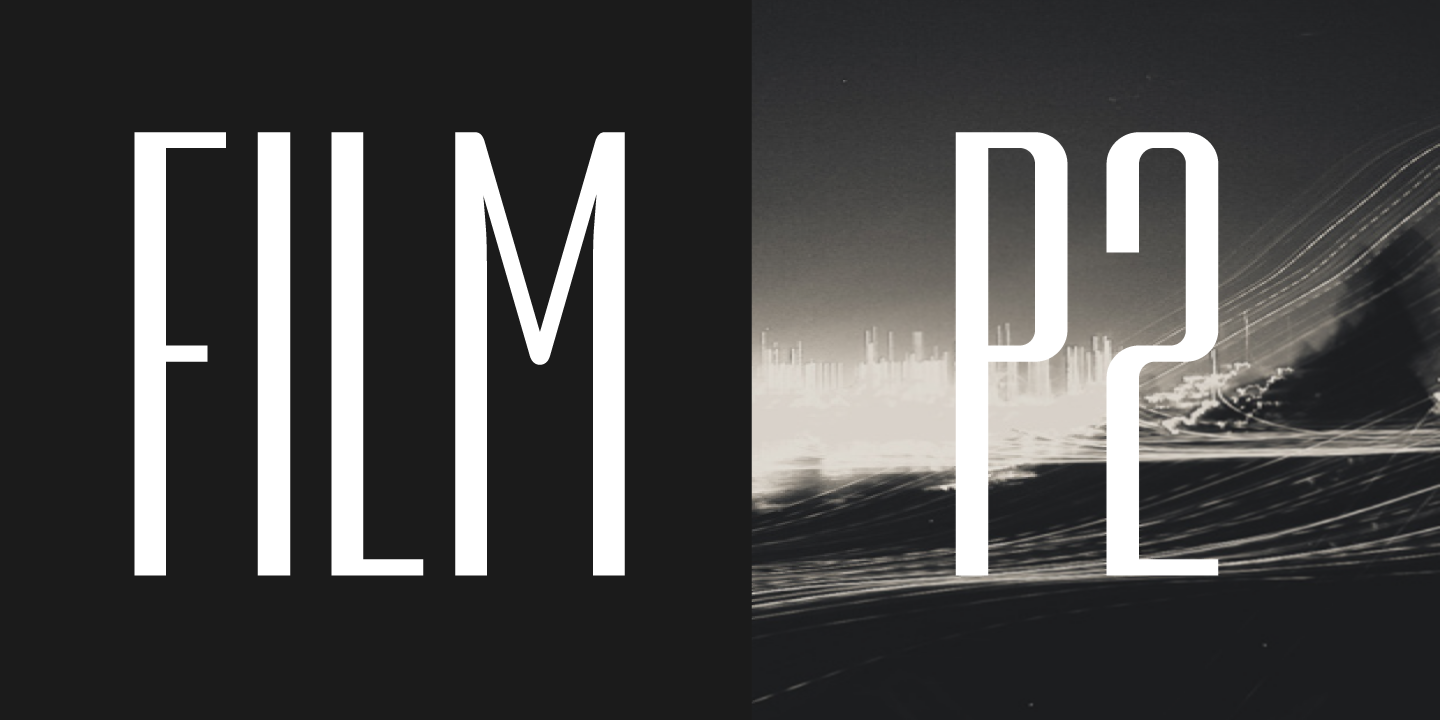
Film P2 Font is perfect for movie poster designs, film production company logos, cinema marketing materials, entertainment industry branding, television show graphics, streaming platform interfaces, film festival posters, documentary titles, and video production credits. This cinematic typeface excels in both dramatic digital presentations and high-impact print applications.
What makes Film P2 Font exciting is its authentic representation of classic Hollywood typography combined with modern cinematic appeal that instantly evokes the glamour and drama of the entertainment industry. The carefully designed letterforms feature bold, theatrical strokes and commanding presence that capture the essence of blockbuster films while maintaining exceptional readability. Its dramatic appearance creates instant visual impact, making it perfect for projects requiring entertainment industry authenticity and star quality appeal.
The Film P2 Font family includes multiple cinematic variations: Regular, Bold, Condensed, Extended, Italic, and Outline versions. Each family member maintains consistent film industry aesthetics while offering different visual impacts for diverse entertainment design applications and media production needs.
Film P2 Font Free Download provides designers with an exceptional tool for creating compelling entertainment communications that capture the magic and excitement of the film industry. This remarkable typeface combines classic Hollywood tradition with contemporary functionality, making it ideal for production companies, entertainment agencies, streaming services, and media organizations. The font's distinctive characteristics include theatrical letterforms, dramatic spacing, and commanding details that reflect the grandeur of cinema while ensuring excellent readability across all entertainment applications.
Professional designers choose Film P2 Font for projects requiring entertainment industry credibility and cinematic appeal. Whether developing movie marketing campaigns, film production materials, or entertainment brand identities, this font maintains its dramatic presence across different media contexts. The typeface supports extensive character sets and includes entertainment-specific symbols relevant to film production, cinema marketing, and media communication.
The creation of Film P2 Font involved extensive research into classic Hollywood typography and modern entertainment design trends. Its authentic appearance honors cinema history while providing contemporary functionality for today's entertainment industry needs. The font's bold proportions and theatrical character make it particularly effective for movie trailers, film posters, and entertainment venue signage.
For graphic designers working on entertainment and media projects, Film P2 Font offers unmatched cinematic authenticity and star power appeal. Its dramatic appearance works exceptionally well in movie marketing materials, entertainment websites, and film festival graphics. The font's premium quality ensures professional results whether used in digital streaming platforms or large-format cinema displays.